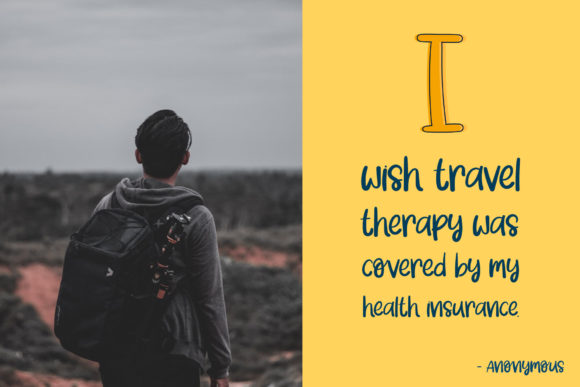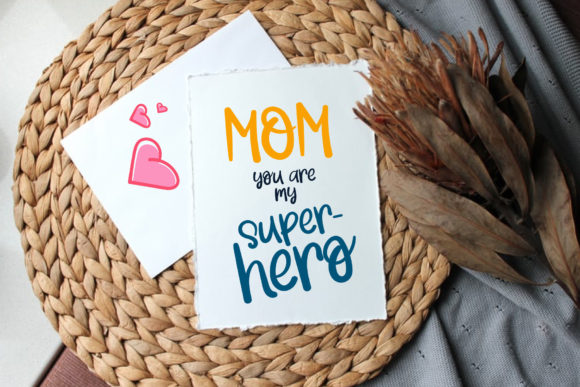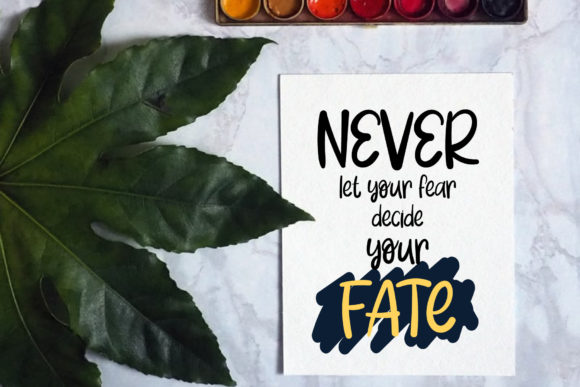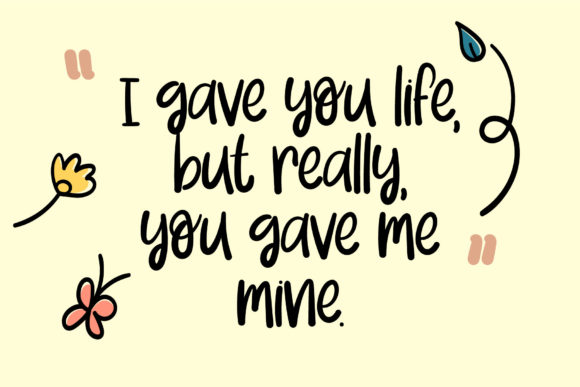
Mom of Boys Font
About Mom of Boys Font
Mom of boys is a carefully designed handwritten font! It will add both friendliness and elegance to your most creative projects!